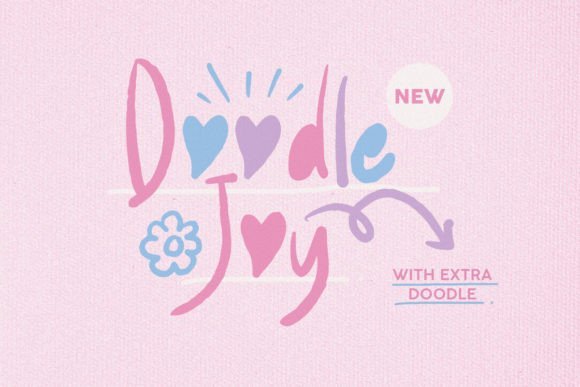
Unleash Your Inner Artist with Doodle Joy Font
Have you ever found yourself sitting with a blank journal, surrounded by endless possibilities, but unable to put pen to paper? You’re not alone! We’ve all been there, stuck in a creative rut, searching for that spark that ignites our imagination. For many of us, that spark comes in the form of a beautiful font – one that inspires us to let our thoughts flow freely and our creativity soar.
Enter Doodle Joy Font, the ultimate tool for unleashing your inner artist. This charming handwriting font is more than just a font – it’s a gateway to a world of endless creativity and self-expression. With its delightful bonus of doodles, Doodle Joy Font elevates your designs to a new level of charm, making it the perfect addition to any project, from journaling masterpieces to t-shirts and beyond.
- Unique Characteristics: The Doodle Joy Font features a playful, hand-drawn design with intricate doodles and patterns, adding a touch of whimsy and personality to any text.
- Customizability: The font includes a range of alternates and ligatures, allowing users to customize the appearance of their text and create unique combinations.
Doodle Joy Font Review
Overall, I have mixed feelings about the Doodle Joy Font. While it has its charm, it also has some limitations that might make it less suitable for certain projects.
- ✨ Unique and playful style that adds a creative touch to designs
- ✨ Well-suited for children’s books, educational materials, and other projects that require a whimsical feel
- ✨ Easy to read and understand, even at smaller font sizes
- ⚠️ Limited in its versatility, making it difficult to use in more formal or professional contexts
- ⚠️ Might not be the best choice for text-heavy projects, as the font’s playful nature can make it difficult to read large amounts of text
- ⚠️ May not be suitable for logos or branding materials, as it can come across as too casual or unprofessional
The Doodle Joy Font is a fun and creative addition to any design project. However, its limitations should be taken into consideration when deciding whether or not to use it. If you’re looking for a font that adds a playful touch to your design, this might be a great choice. But if you need a more versatile or professional font, you might want to look elsewhere.
Getting the Most Out of Doodle Joy Font
For best results, use Doodle Joy Font for headings, titles, and other emphasis areas. You can also experiment with different font sizes, colors, and combinations to create visually appealing designs.
Doodle Joy Font is ideal for:
– Children’s book illustrations
– Handmade product labels
– Whimsical greeting cards
– Quirky blog headers
Alternative Fonts to Doodle Joy Font for Designers
Great Vibes Font is a playful, handwritten font perfect for adding a touch of whimsy to your designs. It’s ideal for titles, headings, and any text that requires a carefree feel. When to use: Create a fun and casual atmosphere, such as for children’s products or advertising campaigns.
Great Vibes Font has a more elegant and refined feel compared to Doodle Joy Font, which is more rustic and childlike. Great Vibes Font is also more versatile and can be used for a wider range of designs, from elegant to playful.
Pacifico Font is a beautiful, cursive font that exudes a relaxed, beachy vibe. It’s perfect for designs that need a soothing and calming atmosphere. When to use: Create a peaceful and serene environment, such as for wellness products or travel websites.